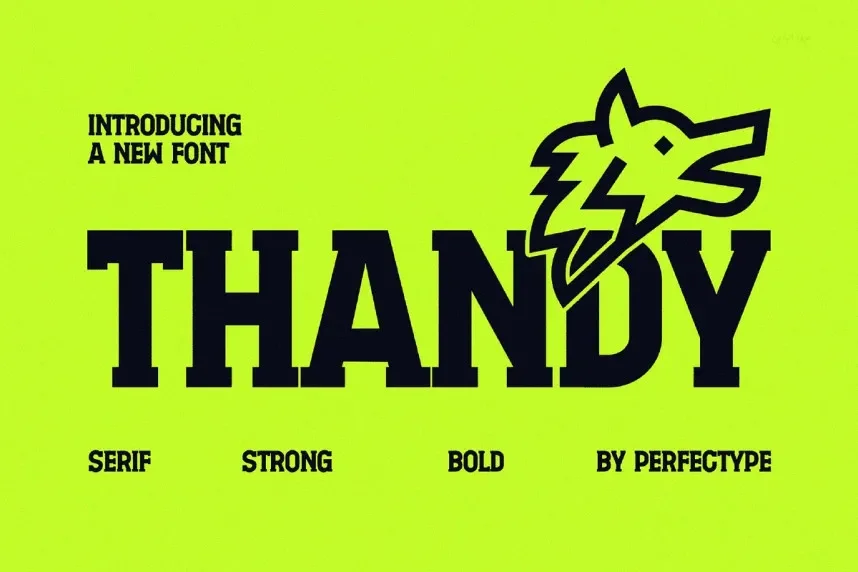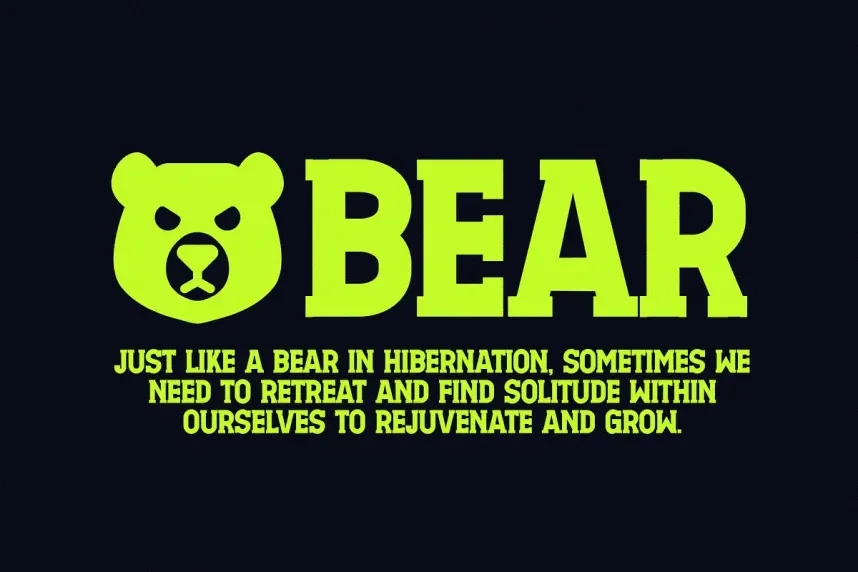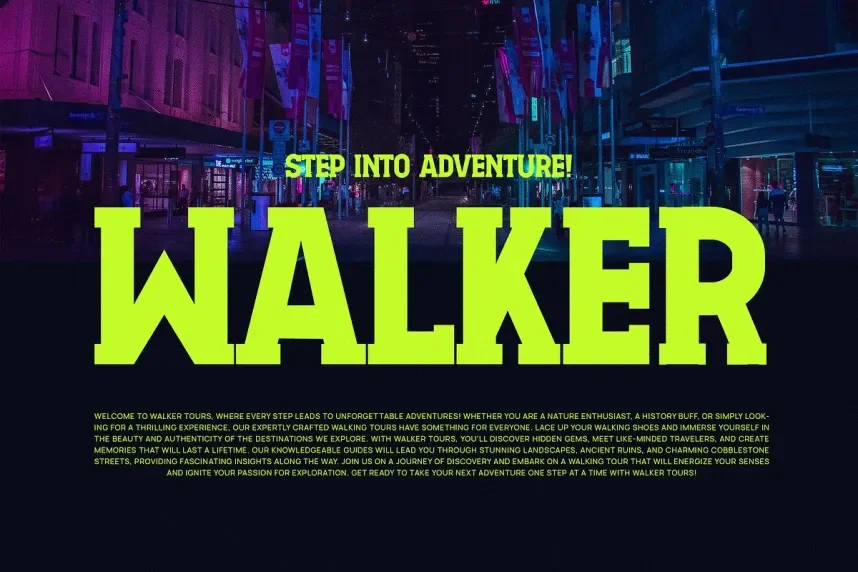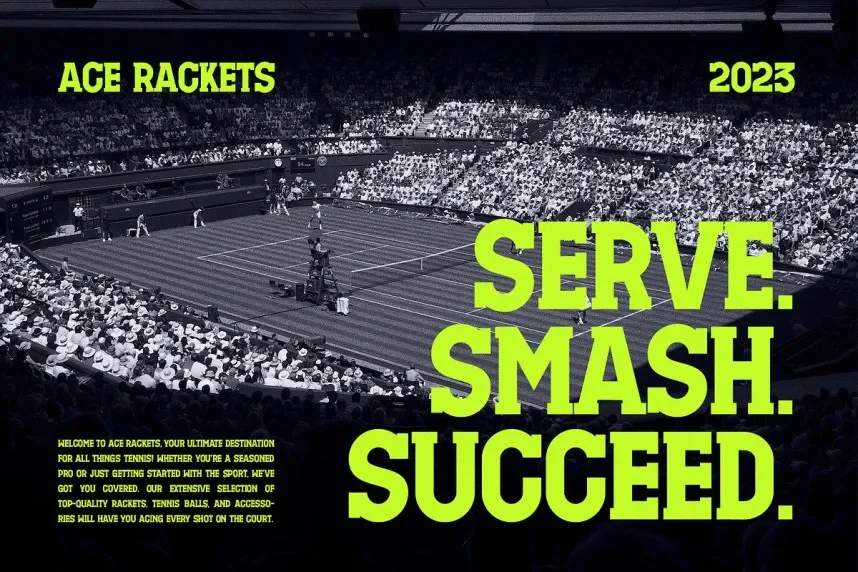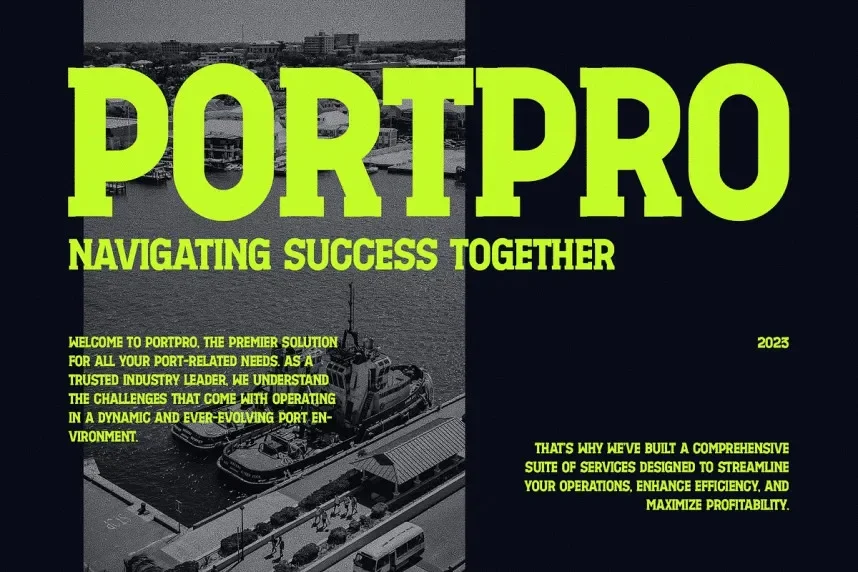
Thandy Font is a modern, elegant sans-serif typeface that combines sharp edges with soft curves. Its geometric design offers a professional yet approachable feel, making it suitable for business branding, logos, and digital applications.